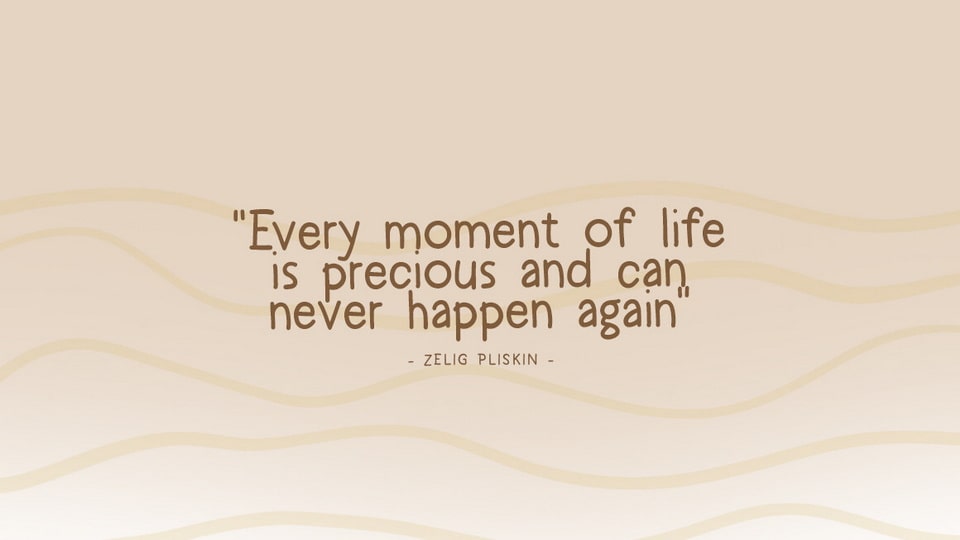
New Boba is a cute comic font that brings a heartwarming touch of adorable charm and playful storytelling to your designs.
New Boba font features a simple and clean design, with each letter exuding a sense of lively movement. Whether you’re crafting children’s book titles, captivating posters, or eye-catching branding, this font infuses a burst of cuddly personality that captures the essence of childhood wonder.